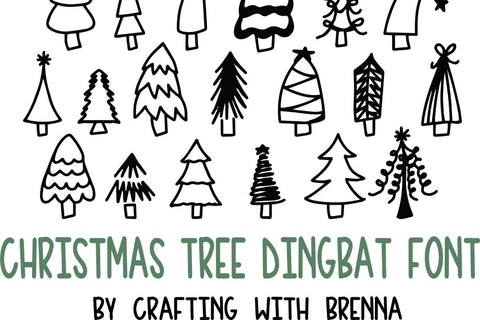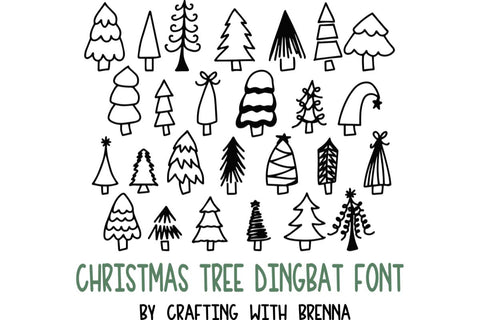
Christmas Tree Dingbat Font
This font will be perfect for all your Craft projects! Use it to make custom shirts, keychains, valentines, tags, bags, and whatever else you can think of!